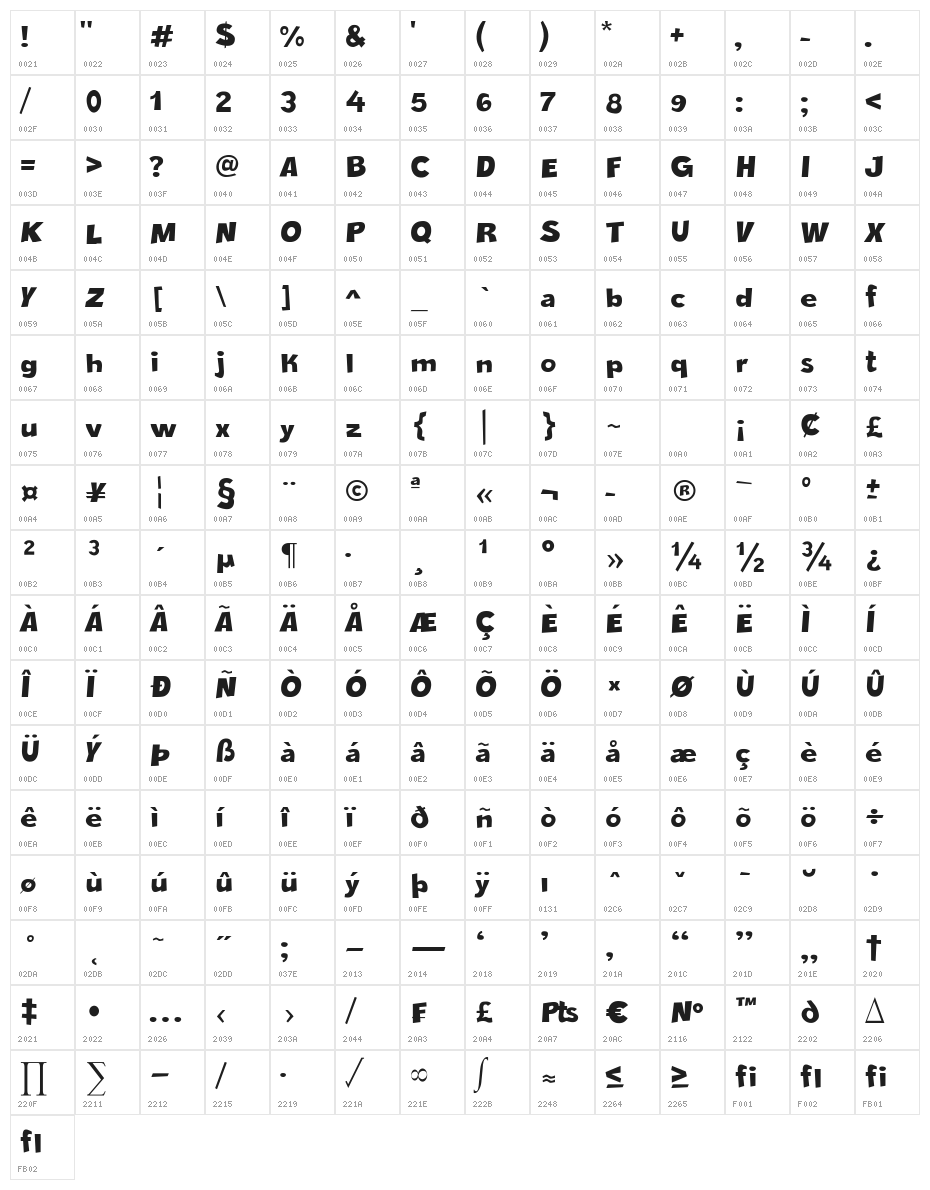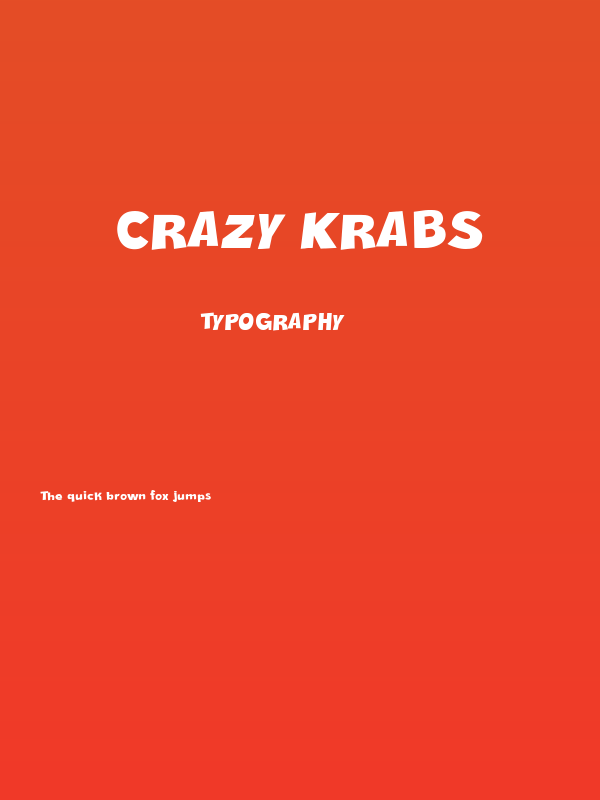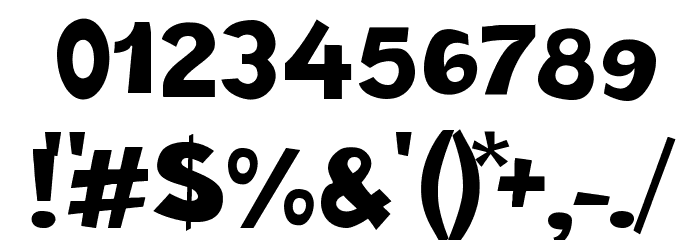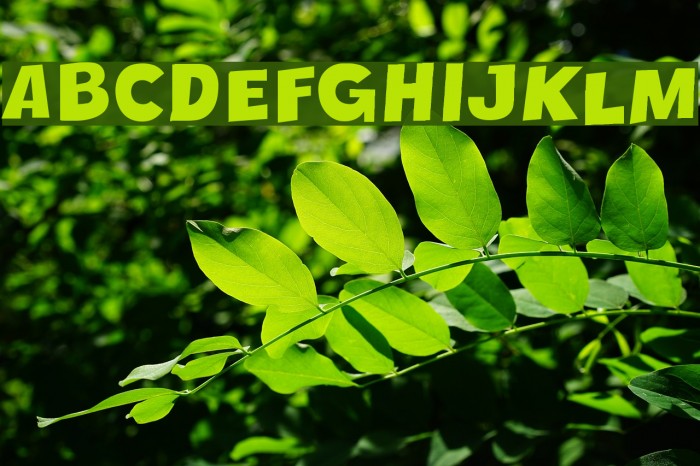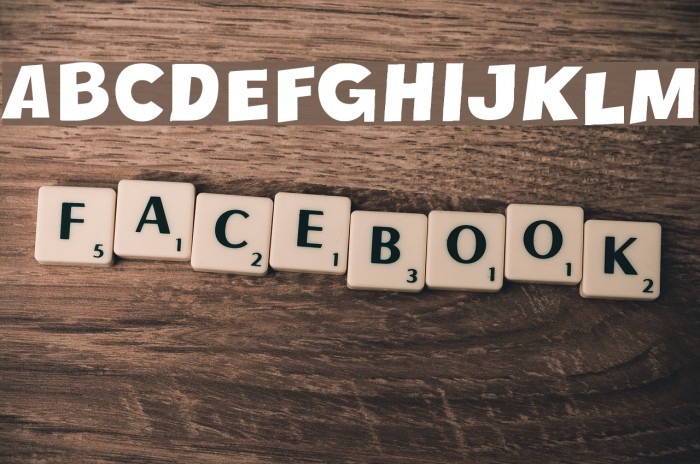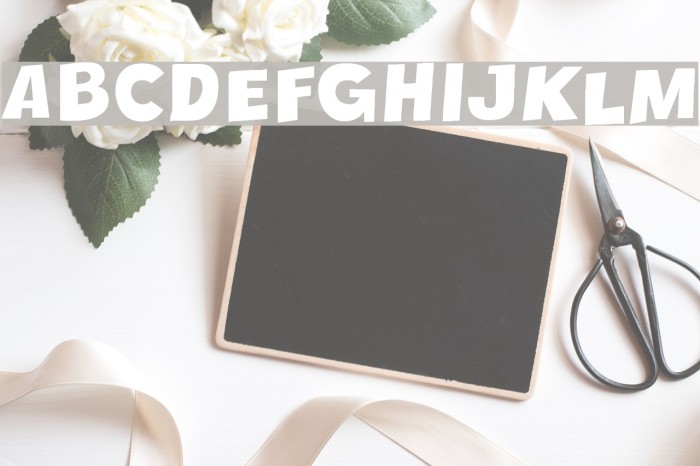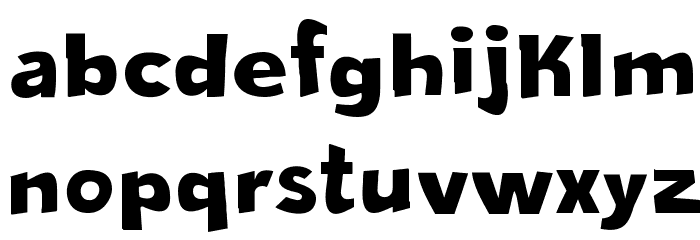
Crazy Krabs Font
Crazy Krabs Description
This playful and bold font features a quirky, cartoon-like style with exaggerated curves and angles. The uppercase letters are robust and slightly slanted, giving a dynamic and energetic feel. Lowercase letters maintain the same whimsical character, with a consistent stroke width that adds to the font's boldness. The numerals are equally playful, with a uniform height that aligns well with the overall style. Special characters are designed to match the font's lively aesthetic, making it suitable for creative and informal applications. The font's unique personality makes it stand out, perfect for projects that require a fun and engaging typeface.
| Overall Style | Playful, Cartoon-like |
| Proposed Projects | Ideal for children's books, comic strips, playful branding, and creative posters. |